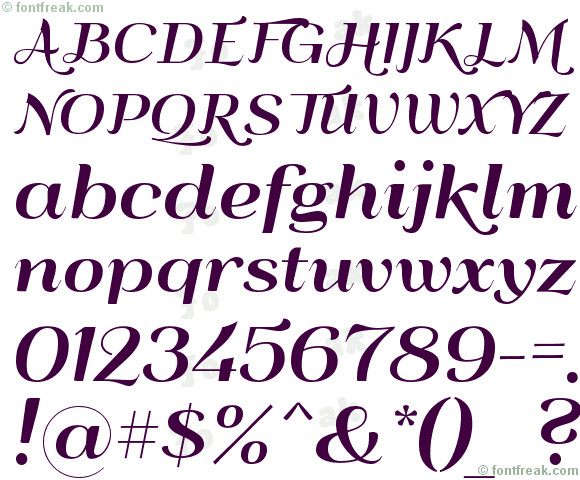
QumpellkaNo12
About QumpellkaNo12
QumpellkaNo12 is a captivating display font created by Grzegorz L. This unique typeface falls into the category of serif fonts, characterized by its elegant curves and sophisticated stroke details that evoke a sense of style and creativity. The font features a medium stroke weight with noticeable contrast, giving it a dynamic and engaging appearance. The spacing between the letters is thoughtfully designed, allowing for readability while maintaining a visually appealing flow. Decorative elements are subtly integrated, enhancing its charm without overwhelming the overall design.
This versatile font is perfect for a variety of creative projects. It shines in wedding invitations, where its elegant flair can add a touch of romance and sophistication. Movie posters also benefit from the distinctive character of QumpellkaNo12, making titles stand out in a bold yet refined manner. Restaurant menus can leverage this font to create an inviting atmosphere, enticing patrons with its stylish presentation. Additionally, content creators can use this font for branding materials, social media graphics, and promotional flyers, ensuring their work captures attention.
The target audience for QumpellkaNo12 includes graphic designers, small business owners, and content creators who seek a font that combines elegance with uniqueness. Its ability to convey a sense of professionalism while being visually striking makes it suitable for various applications.
What sets QumpellkaNo12 apart is its perfect balance between classic serif characteristics and modern design sensibilities. This font not only enhances the aesthetic appeal of any project but also communicates a message of quality and attention to detail. For those looking for a fresh yet timeless font, the QumpellkaNo12 font free download offers an excellent opportunity to elevate design work with style.